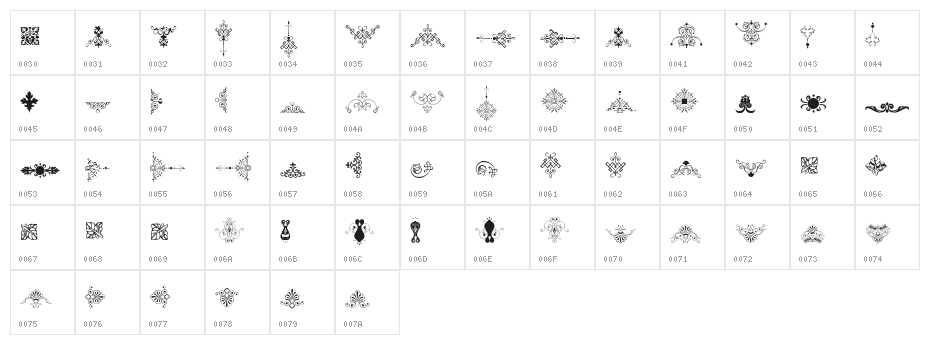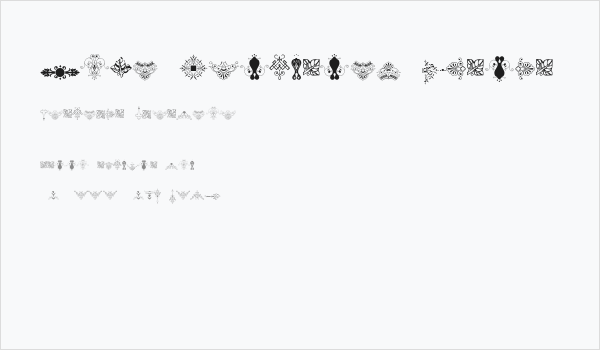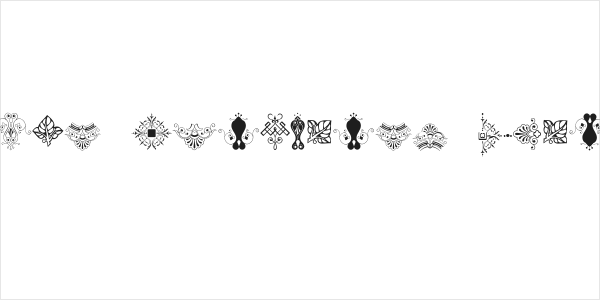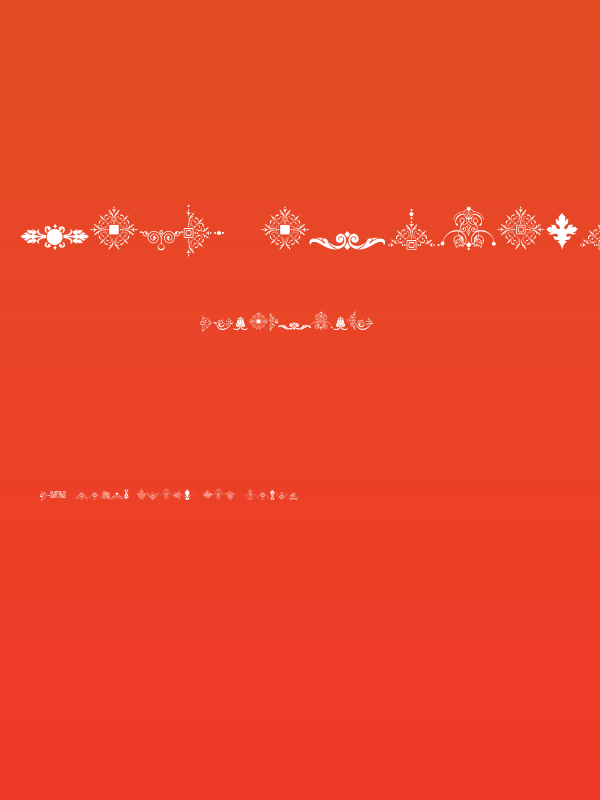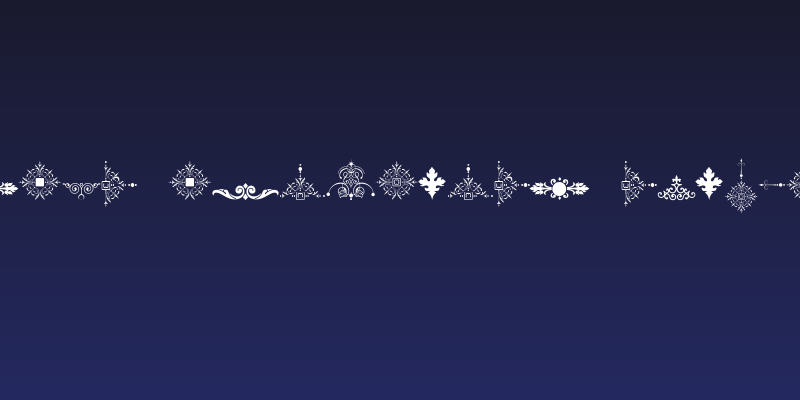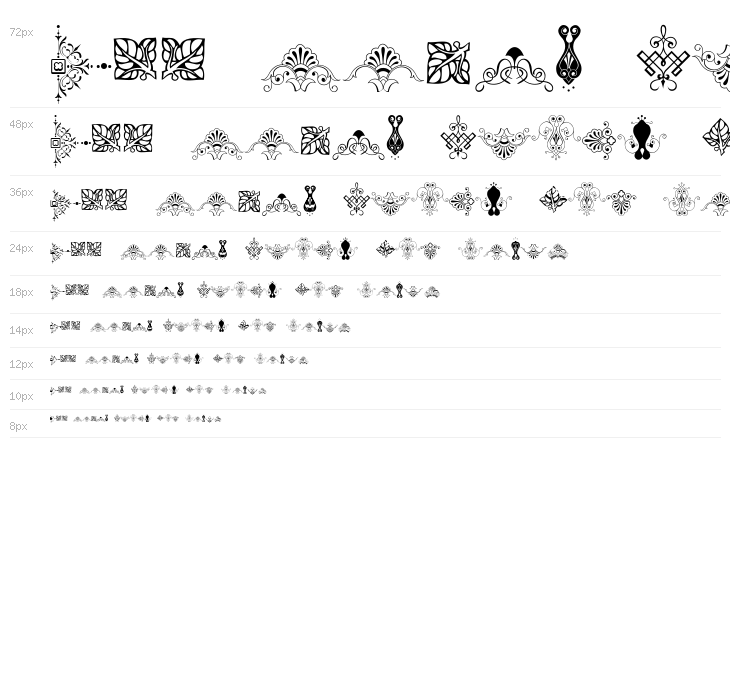
Soft Ornaments Twelve Font
Soft Ornaments Twelve Description
This collection features a series of intricate ornamental designs, each showcasing a unique blend of curves, swirls, and geometric patterns. The designs are reminiscent of classic decorative motifs, often found in vintage manuscripts and architectural details. The elements vary in complexity, with some featuring symmetrical arrangements and others incorporating floral and leaf-like shapes. These ornaments are ideal for adding an elegant touch to various design projects, offering a sense of sophistication and timeless beauty.
| Use Case | Decorative elements, Borders, Invitations |
| Proposed Projects | Ideal for use in invitations, certificates, decorative borders, and vintage-themed designs. |